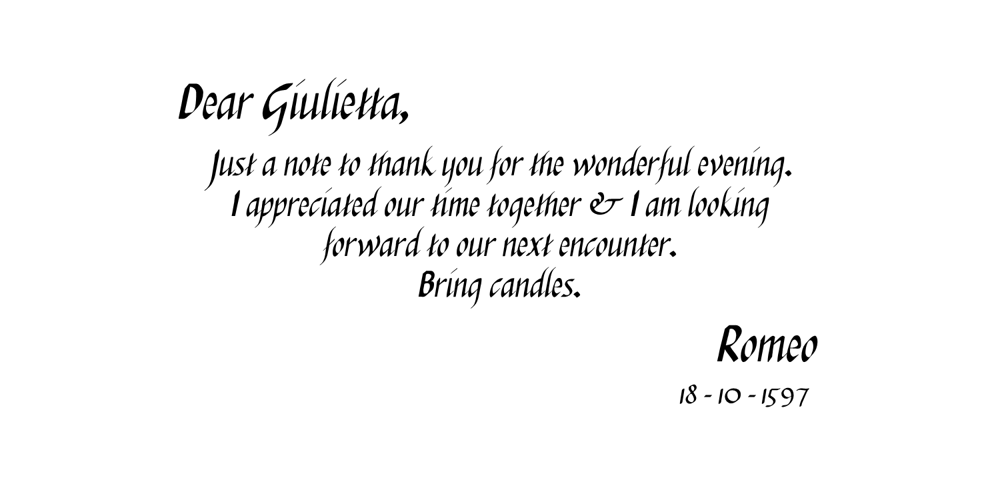
Italiko Font Family was designed by Luca Bolognese and published by Luca Bolognese. Italiko contains 4 styles and family package options. Italiko is a calligraphic font. The letters have been hand-drawn individually to extract the common strokes. The strokes have then been re-composed to give the font a more unified appearance.It comes in Black, Bold, Regular, and Thin. The Thin version is different as the extreme contrast in the font makes the thinner lines disappear. It is likely best used as a display font.There are ligatures for the combination of letters that can be written more quickly by using a single stroke and letters that are slightly different from the ‘Italic canon.’You can select which one to use in your application (i.e., Word) using combinations of italic/bold: No selection -> Regular Bold -> Bold Italic -> Thin Bold Italic -> Black If you end up using the font, get in touch at https://github.com/lucabol/Italiko. Feel free to suggest improvements or let me know if you encounter problems.